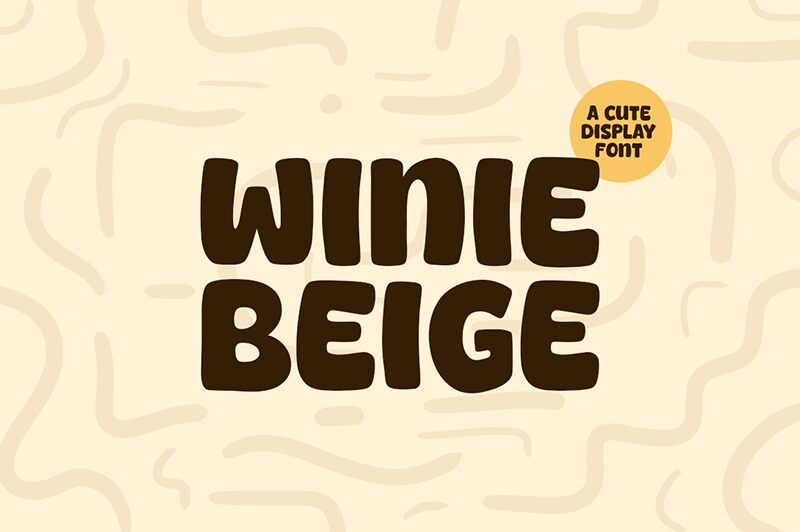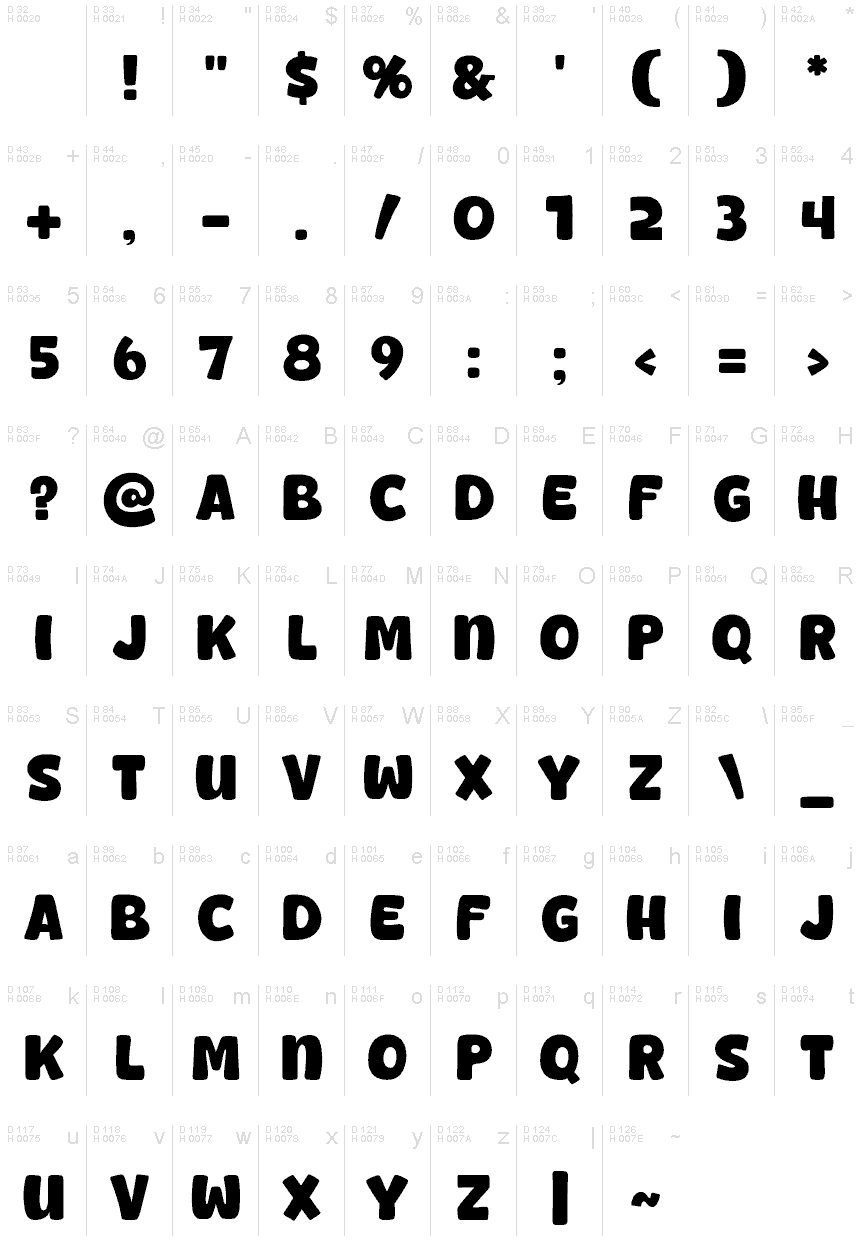
Winie Beige
Winie Beige font by Khurasan is a cartoon display font defined by its playful bold presence. It is smooth at its finest, which makes it approachable and friendly. The whimsical style is also achieved through the slightly slanted characters that defy gravity in some cases.
Differentiate your flyers, posters, or album covers by giving Winie Beige a try as the focal point of such projects. Use it creatively to design TV show titles, game level names, ad headings on billboards, magazine covers for children’s magazines, and logos on juice bottles or ice cream packages. A free option worth keeping in mind!